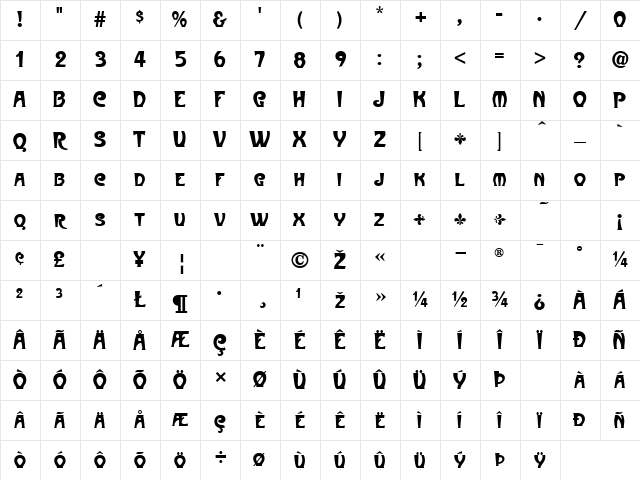
Metropolitan Regular Free Font
Metropolitan Regular
Design Context for Metropolitan
Metropolitan is a composed and adaptable typeface that performs quietly and consistently across a wide range of design contexts.